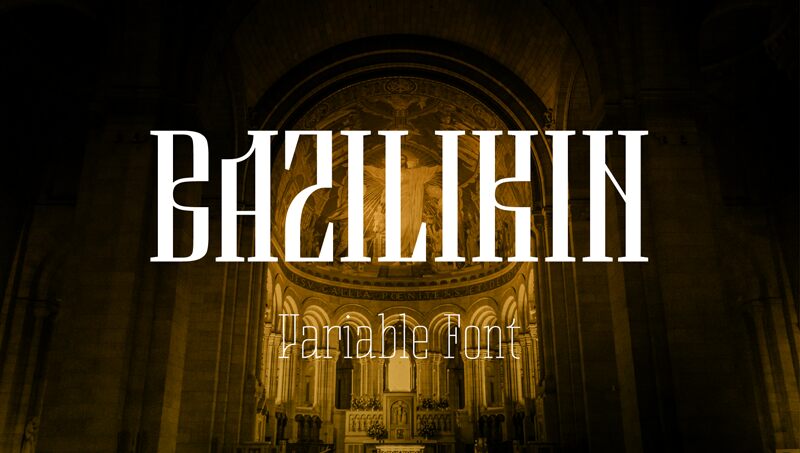
Bazilikin Variable
Bazilikin is a variable font inspired by Romanesque architecture and Cyrillic calligraphy (Vyaz), from thin to bold, symbolizing the skeleton and mainstay of architecture. It can be used in classical, sacred or religious situations.